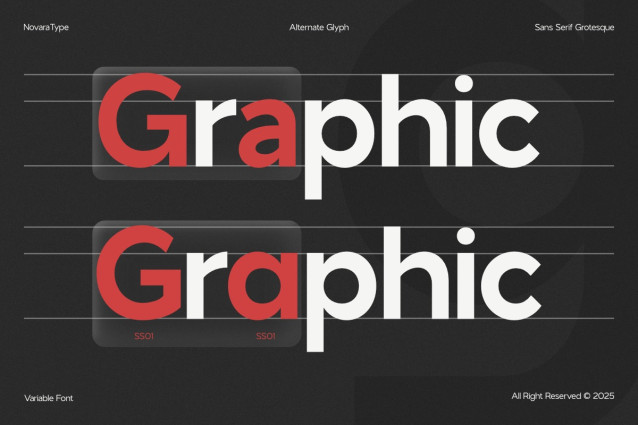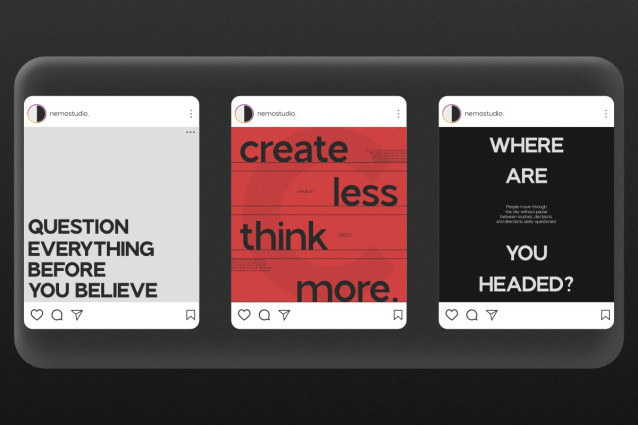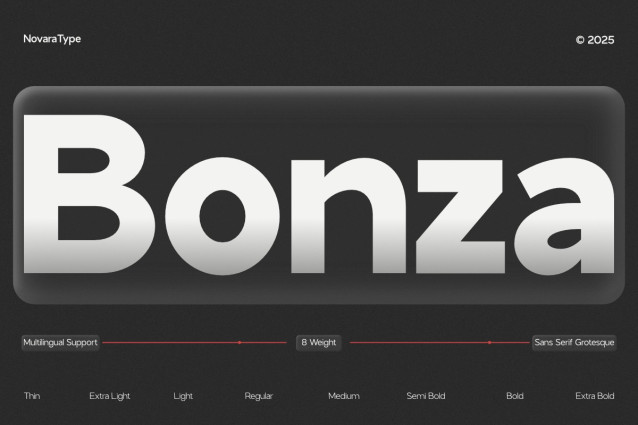
NV Bonza Font
NV Bonza Font is a clean, modern type system designed to deliver clarity, balance, and versatility across a wide range of creative applications. Developed by NovaraType, NV Bonza combines refined proportions with a contemporary character—making it a reliable choice for branding, editorial design, digital interfaces, and professional layouts.